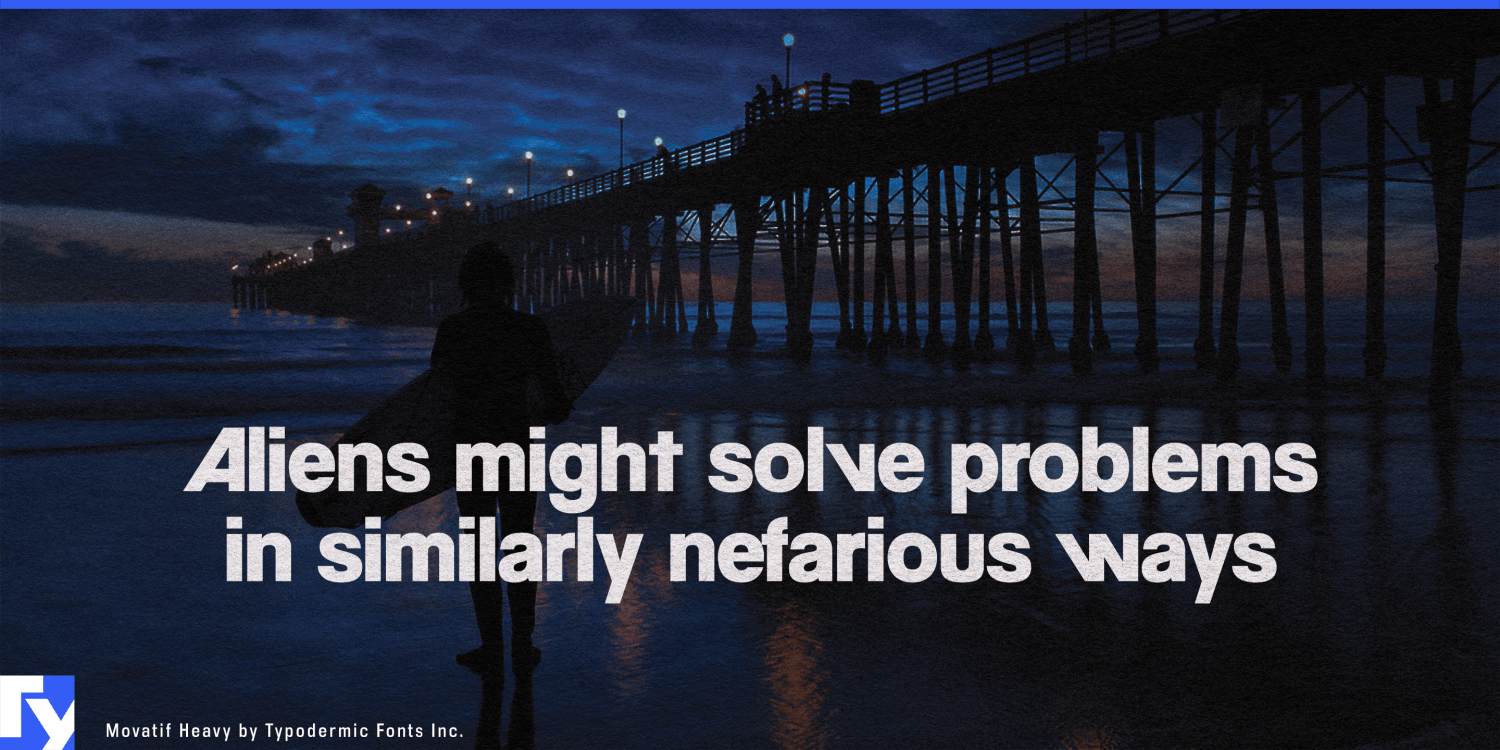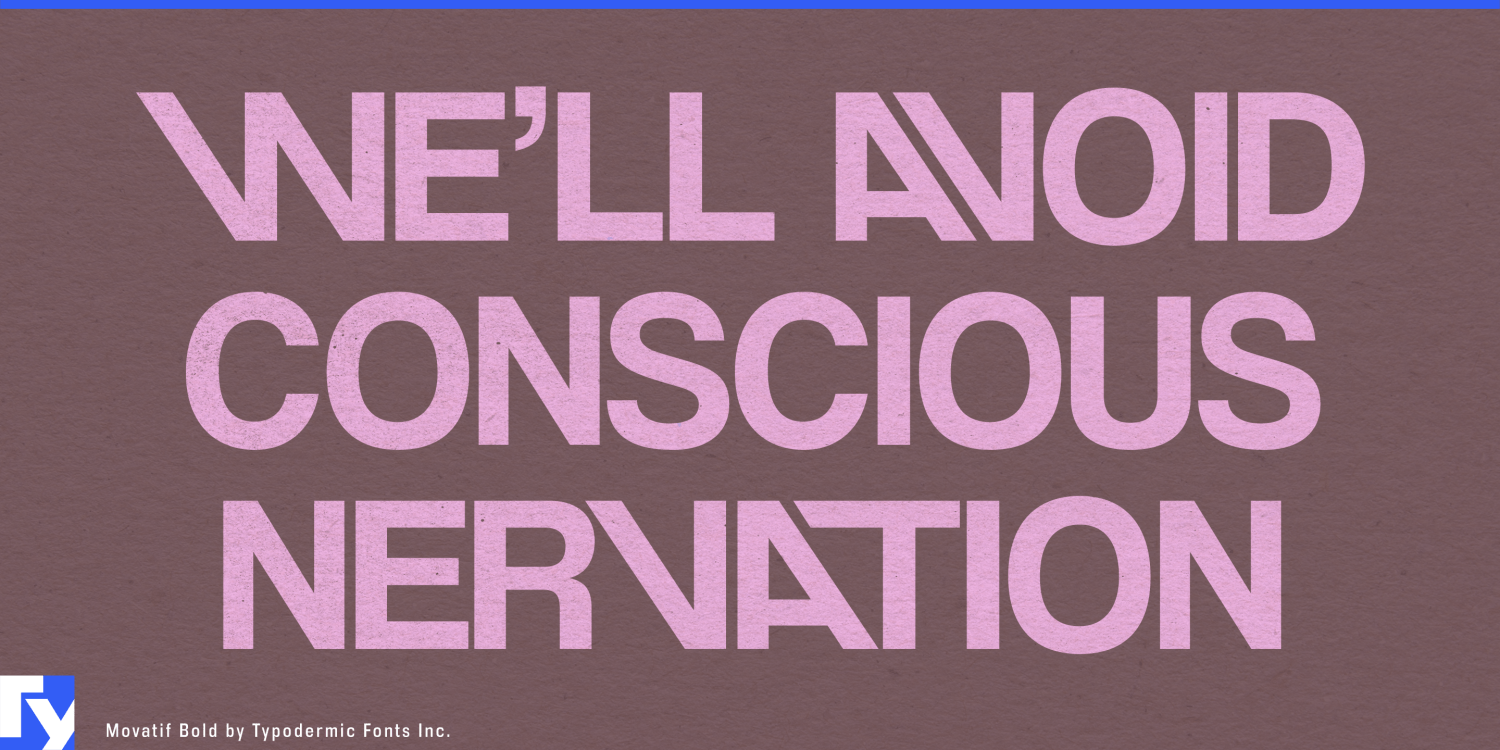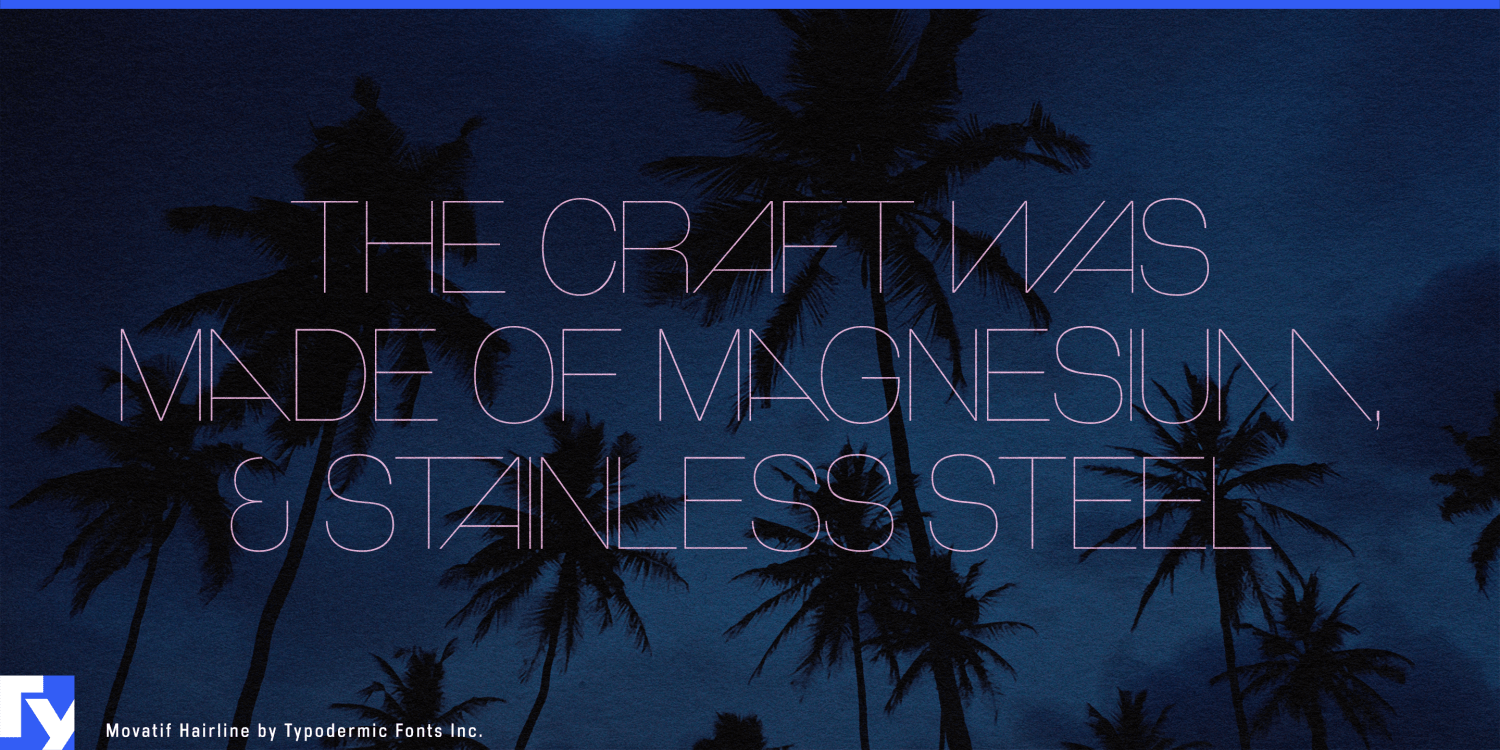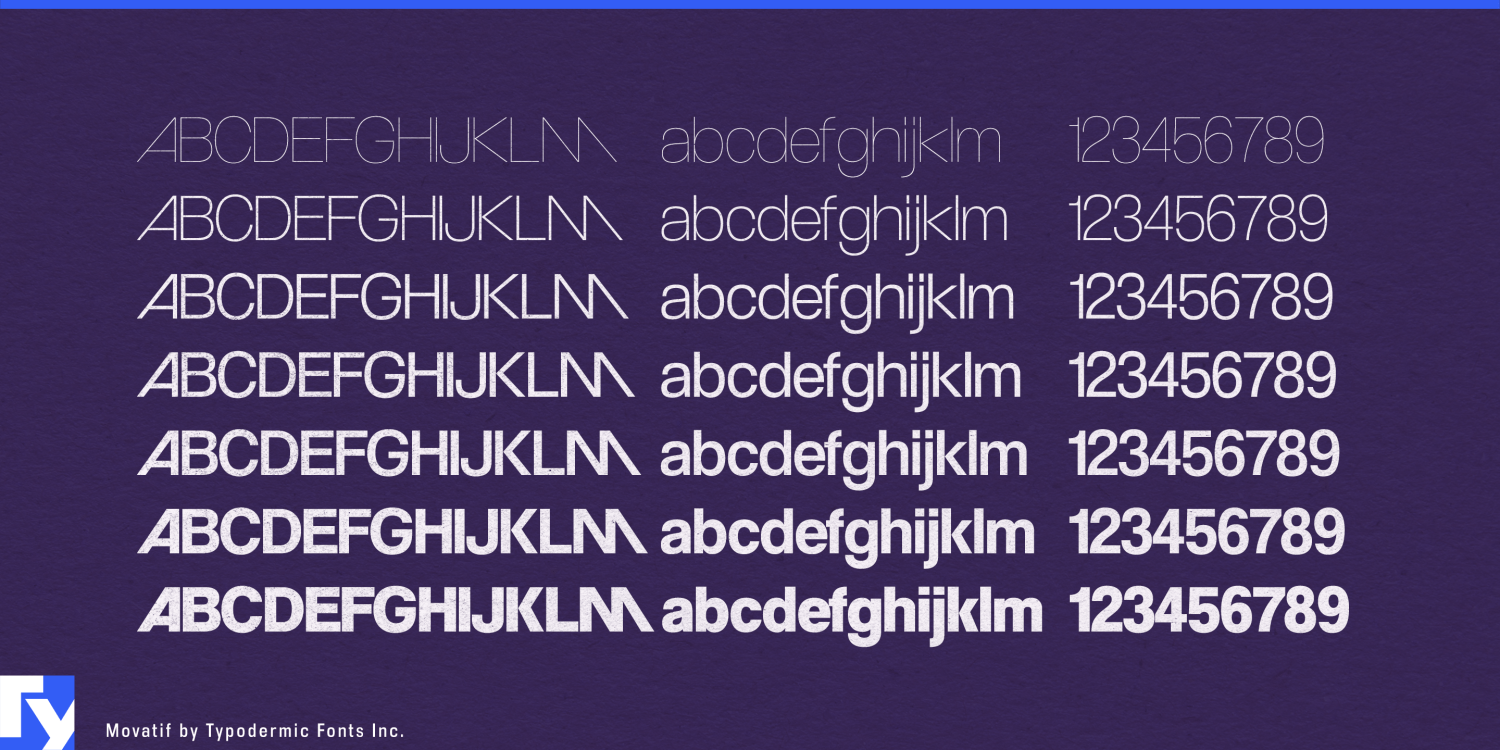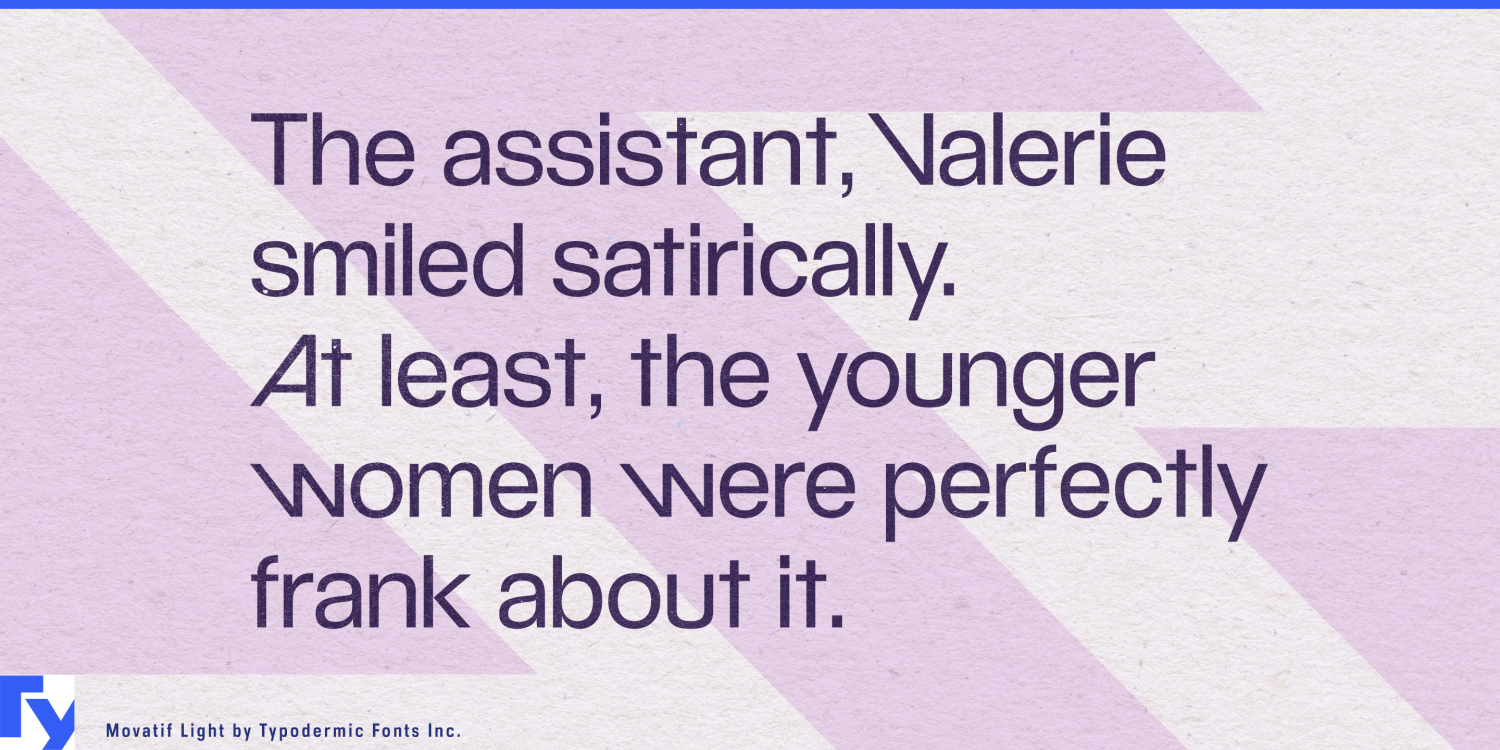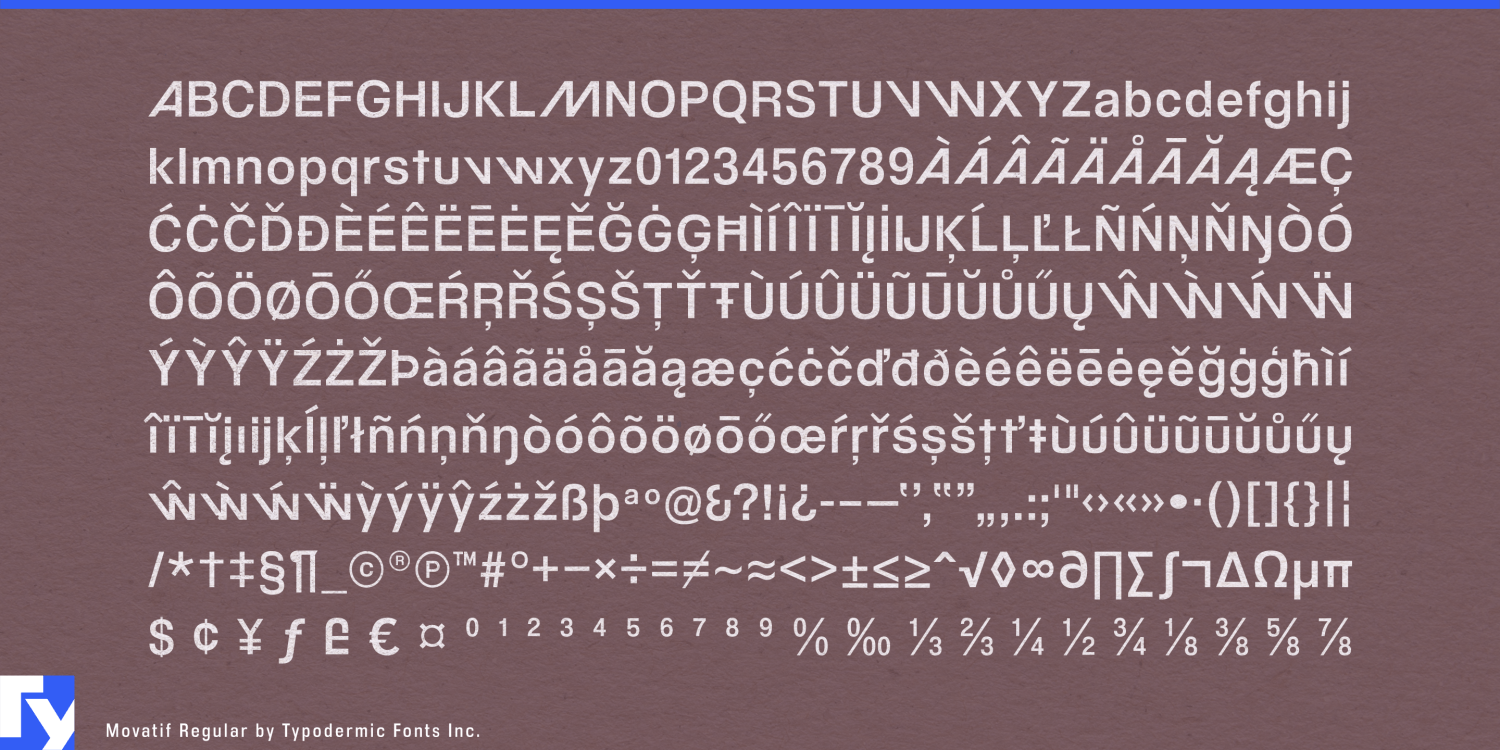
About Movatif
Movatif isn’t just a typeface—it’s a time machine disguised as letters, transporting your designs through the best of 20th-century typography while adding a dash of contemporary flair. This sans-serif marvel from Typodermic Fonts doesn’t…